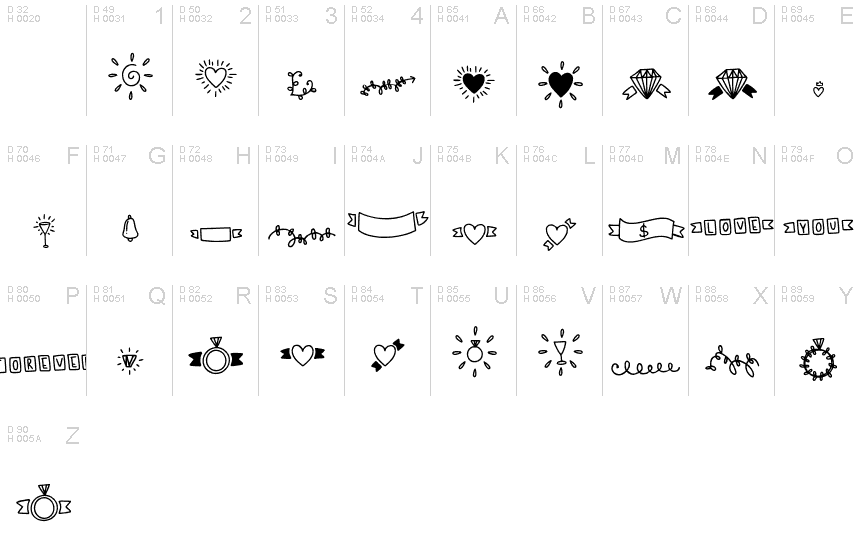
LoveOrnamentsRegular
Love Ornaments is a romantic Valentine-style dingbat font created by Mariyana. Perfect for posters, cards, and other creative projects, this unique dingbat font will make your designs come to life with its beautiful ornaments and love-inspired themes.